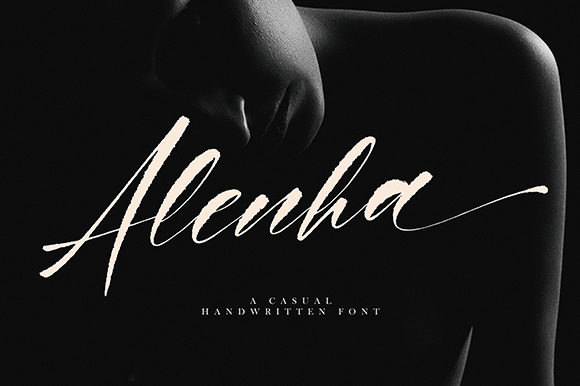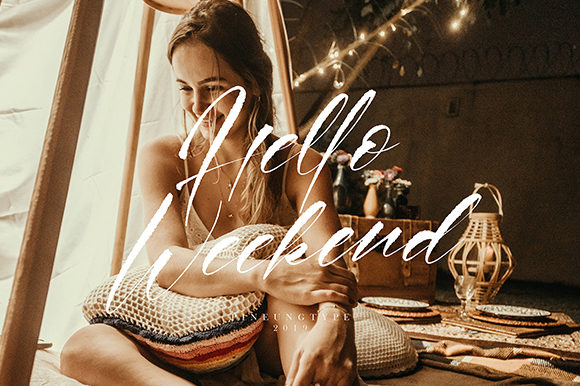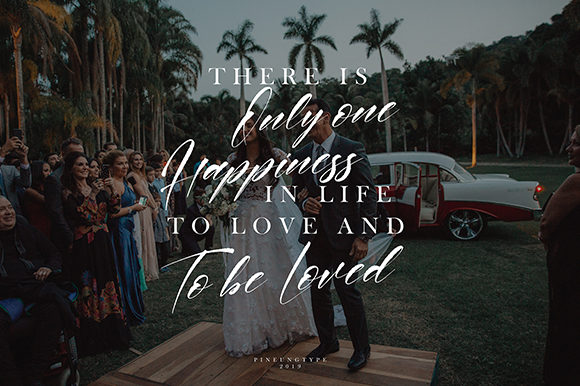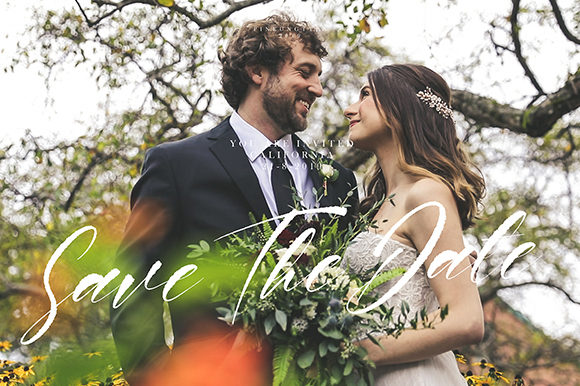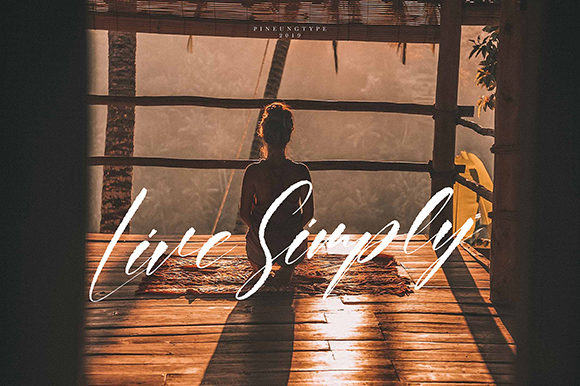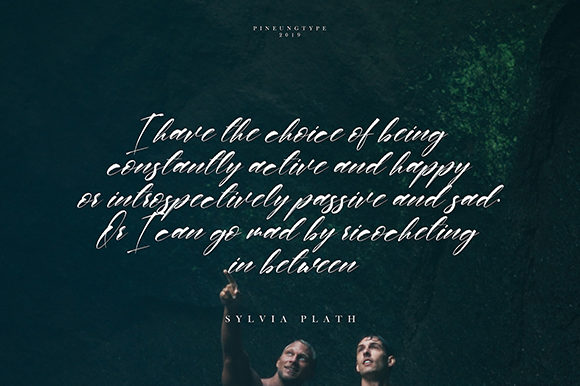
HomeScript FontsAlenha Font Script Fonts Alenha Font FacebookXPinterestWhatsApp Alenha Font Poster 2 Alenha Font Poster 3 Alenha Font Poster 4 Alenha Font Poster 5 Alenha Font Poster 6 Alenha Font Poster 7 About Alenha Font Alenha is a casual, yet beautiful handwritten font. Get inspired by its elegant charm! DOWNLOAD ON CREATIVE FABRICAThis font is sold and delivered by Creative Fabrica. Font Canyon may earn a commission if you buy through this link. People also explored Aversa Font Handmade Font Croiscella Font Farmhouse Font Romasa Font Cosmic Dream Font Balimtha Font Golden Spike MX Font 345 0 TagsAlenha Font Previous articleAntartika Duo FontNext articleHanty Kagote Font LEAVE A REPLY Cancel reply Comment: Please enter your comment! Name:* Please enter your name here Email:* You have entered an incorrect email address! Please enter your email address here Website: Save my name, email, and website in this browser for the next time I comment. Personal Use Free Nuku Nuku Personal Use Free Read more about this font Castina Personal Use Free Read more about this font Dealerplate California Personal Use Free Read more about this font Arnprior Personal Use Free Read more about this font BLOG Free Fonts Risk: Why Free Fonts Can Be Dangerous for Designers Free Fonts Risk: Why Free Fonts Can Be Dangerous for Designers Using free fonts is a common practice in web and graphic design. However, the... Free vs Paid Fonts: Why Investing in Premium Fonts Is Worth It How to Cut Any Font on Cricut: Convert a Font to SVG (Free) To increase your work productivity, choose the most readable fonts.